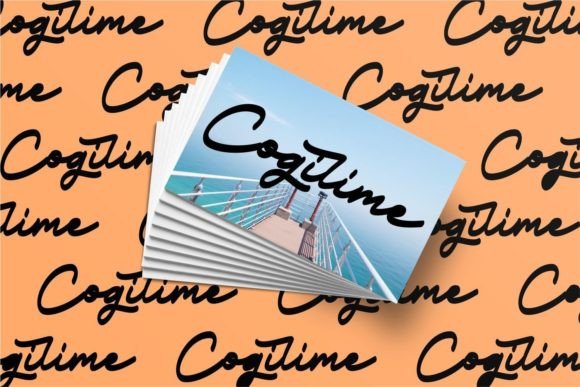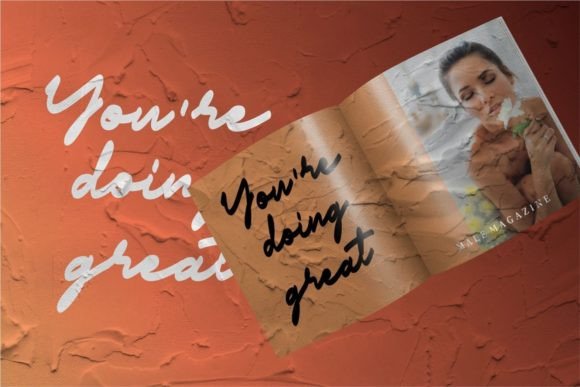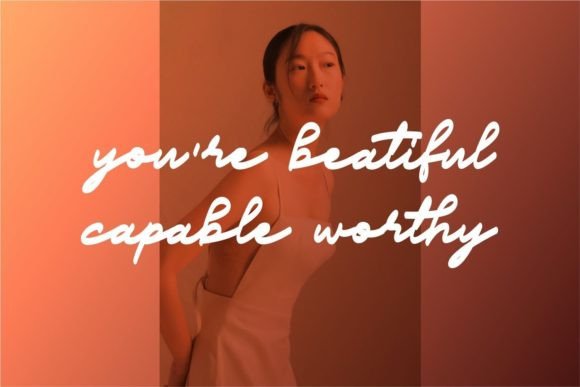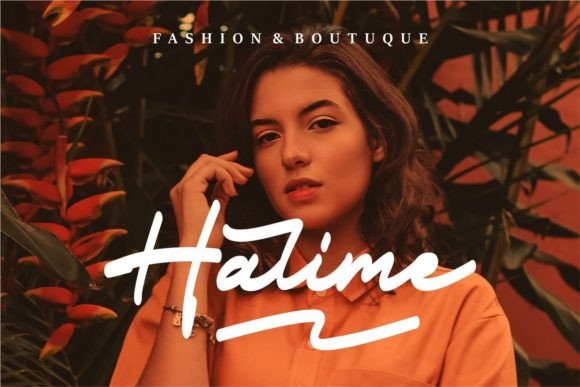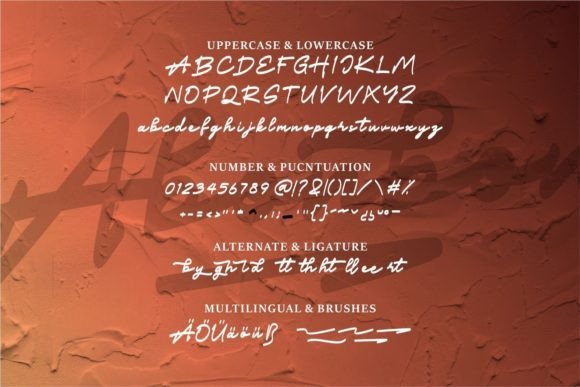
Abonbon Font: Elevate Your Designs with a Stylish and Bold Handwritten Touch
Are you tired of using the same old fonts for your designs? Do you want to add a touch of elegance and sophistication to your headlines and logotype projects? Look no further than the Abonbon font, a gorgeous and bold handwritten font that is sure to take your designs to the next level.
What Makes Abonbon Font So Special?
Abonbon font is a masterpiece of typography, crafted with precision and care to give your designs a stylish touch. This font reads as strong, confident, and dynamic, making it perfect for designers who want to make a statement. With its bold and expressive letters, Abonbon font is sure to grab attention and leave a lasting impression.
Add a Touch of Nostalgia to Your Designs
One of the standout features of Abonbon font is its ability to add tons of nostalgic character to your designs. The font’s handwritten style evokes a sense of warmth and familiarity, making it perfect for designers who want to create a vintage or retro look. Whether you’re working on a branding project, a poster, or a social media graphic, Abonbon font is sure to add a touch of nostalgia that will resonate with your audience.
Abonbon font is perfect for designers and crafters who want to add a touch of elegance and sophistication to their projects. Whether you’re working on a professional design project or a personal crafting project, Abonbon font is sure to inspire your creativity. With its bold and expressive letters, Abonbon font is perfect for a wide range of projects, including:
- Headlines and logotype projects
- Branding and advertising projects
- Crafting projects, such as card making and scrapbooking
Why Choose Abonbon Font?
So why choose Abonbon font for your next design project? Here are just a few reasons:
- Unique and stylish: Abonbon font is a one-of-a-kind font that will set your designs apart from the crowd.
- Versatile: Abonbon font is perfect for a wide range of projects, from professional design projects to personal crafting projects.
- Nostalgic character: Abonbon font adds a touch of nostalgia to your designs, making it perfect for vintage or retro-themed projects.
In conclusion, Abonbon font is a gorgeous and bold handwritten font that is sure to elevate your designs to the next level. With its stylish and nostalgic character, Abonbon font is perfect for designers and crafters who want to add a touch of elegance and sophistication to their projects. Whether you’re working on a professional design project or a personal crafting project, Abonbon font is sure to inspire your creativity and take your designs to new heights.